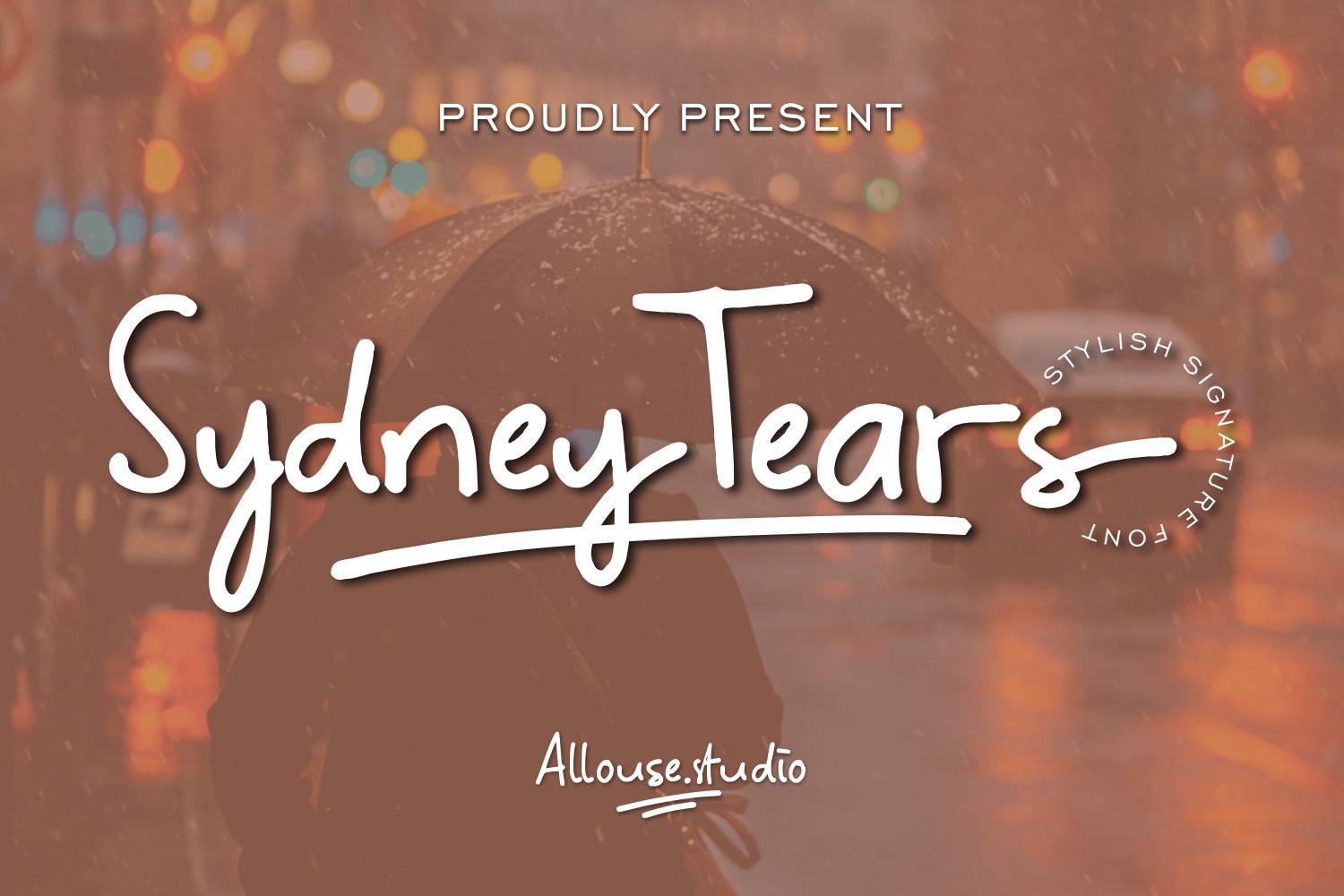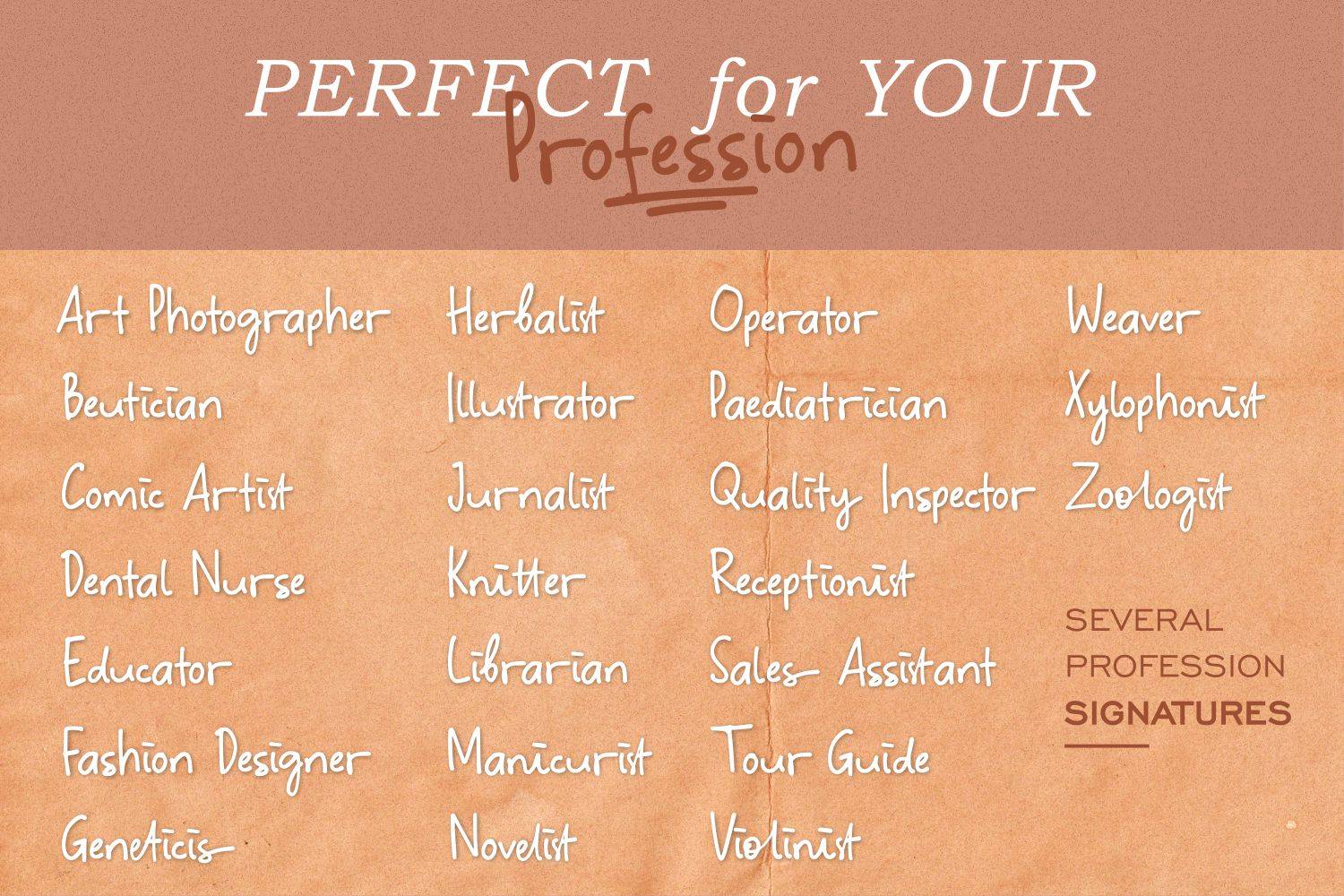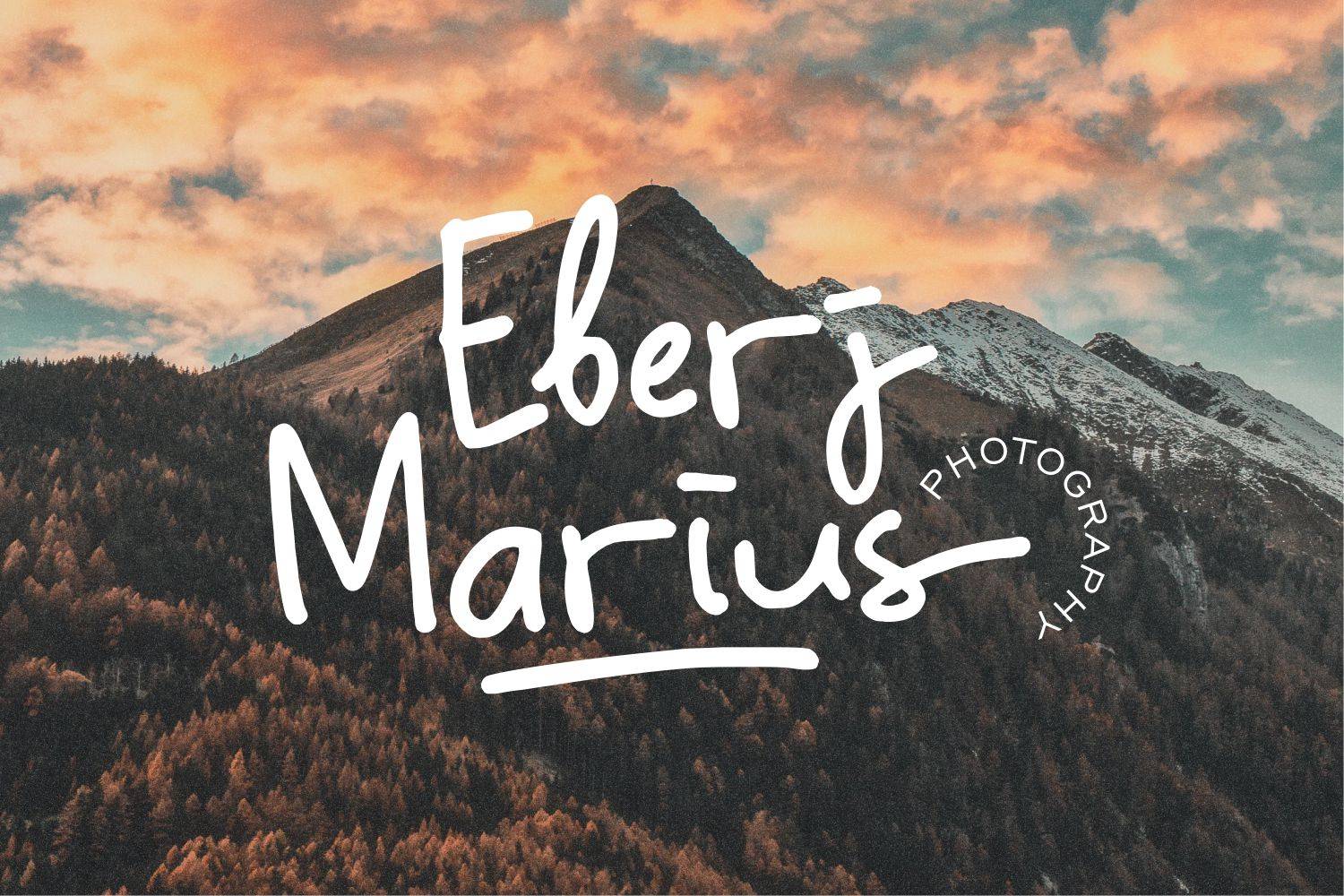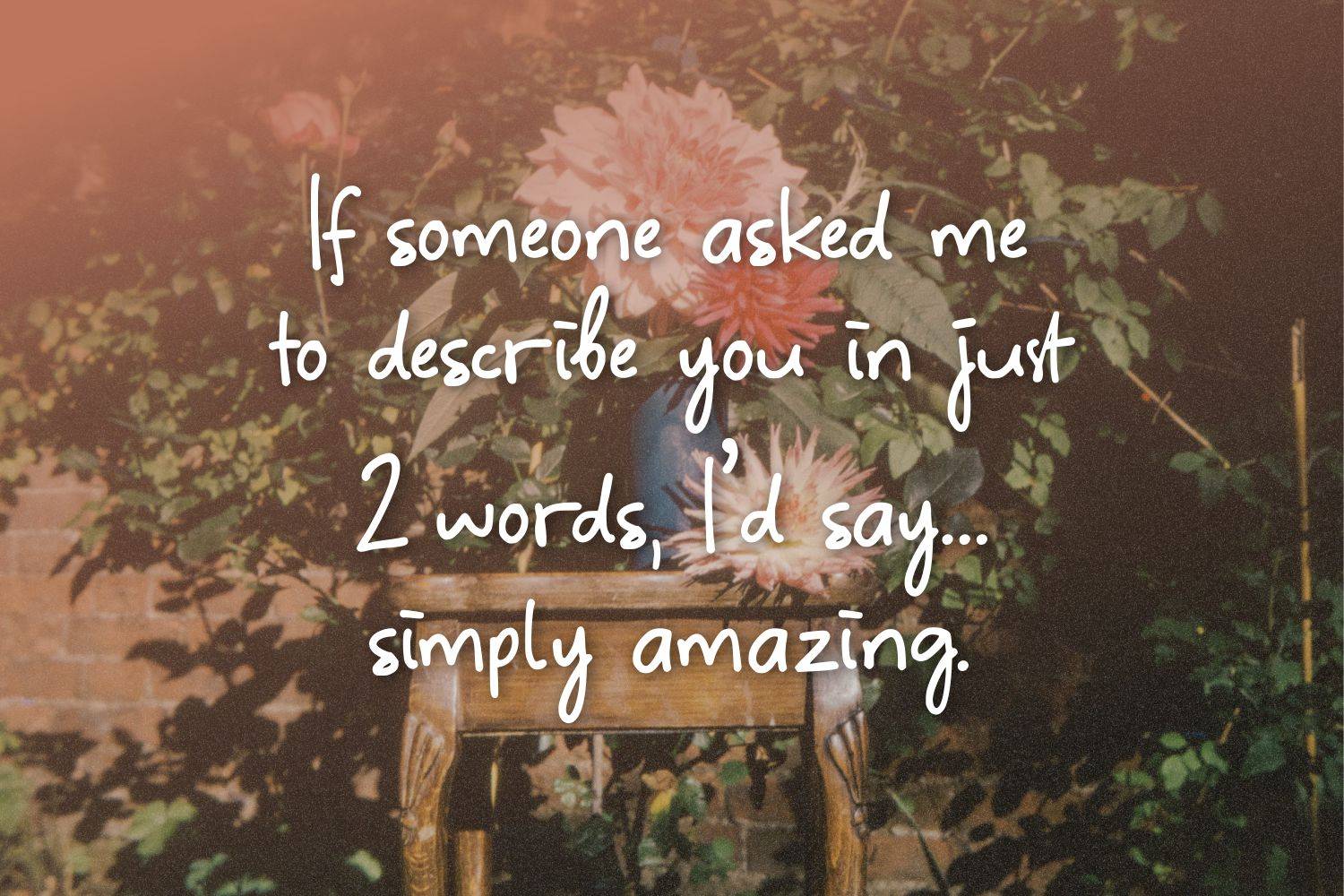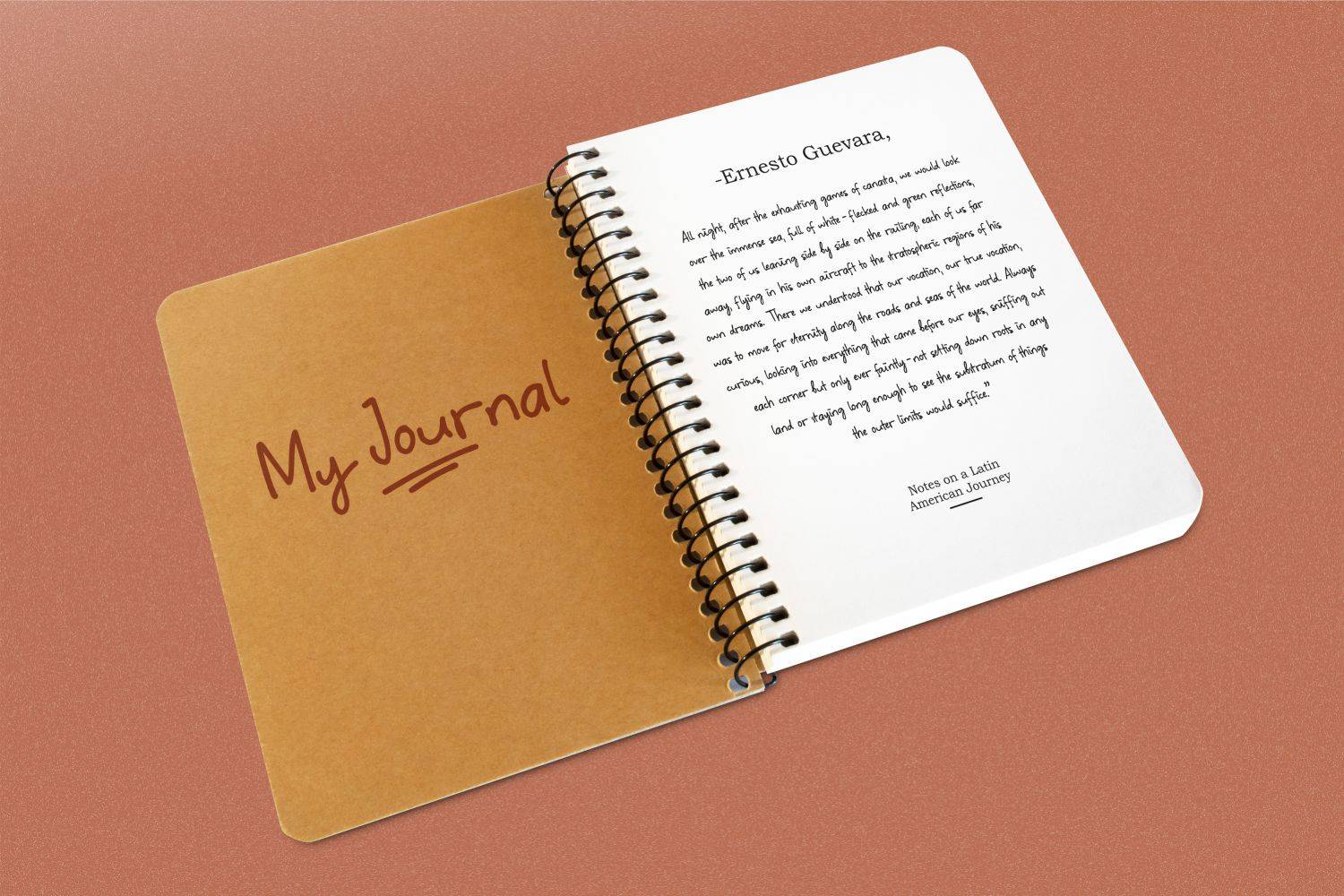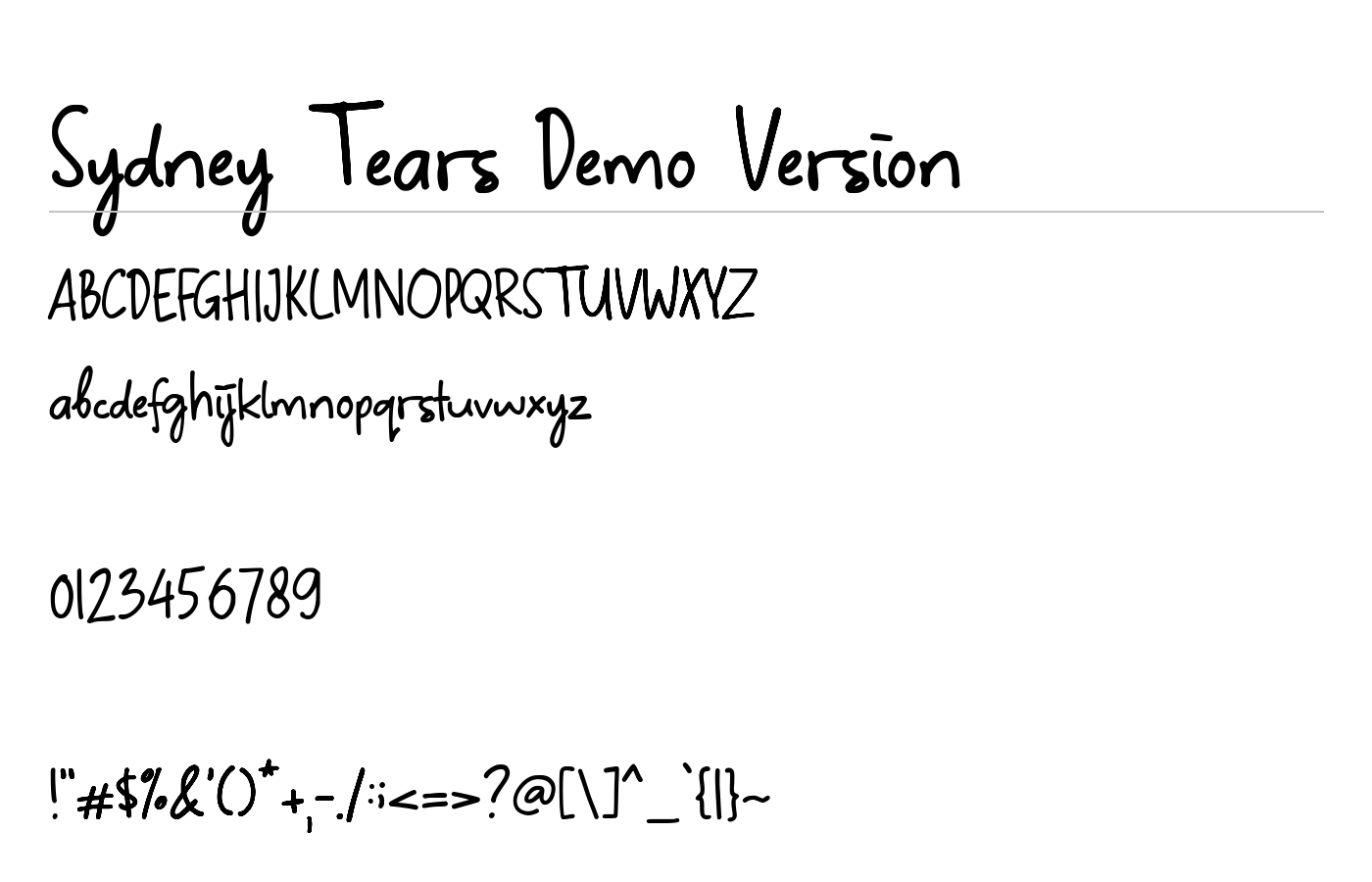
Sydney Tears is a casual, handwritten sans serif font with a friendly and approachable style. Its uneven, slightly playful letterforms and moderate x-height give it an informal, personal feel, making it ideal for creative projects, informal branding, and fun headlines. This font works well where a warm, human touch and a relaxed, handwritten aesthetic are desired.
Sydney Tears Font
About Sydney Tears Font